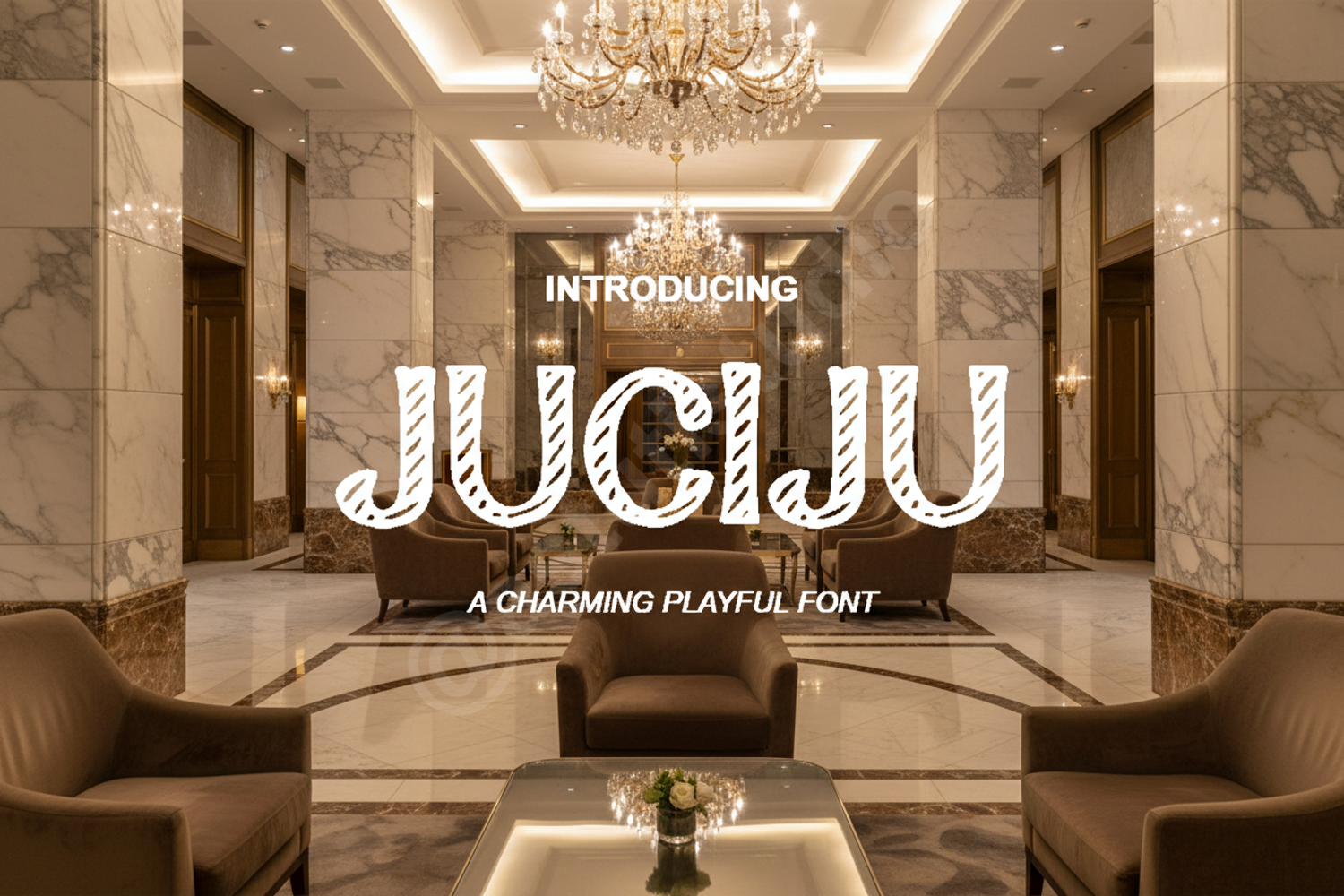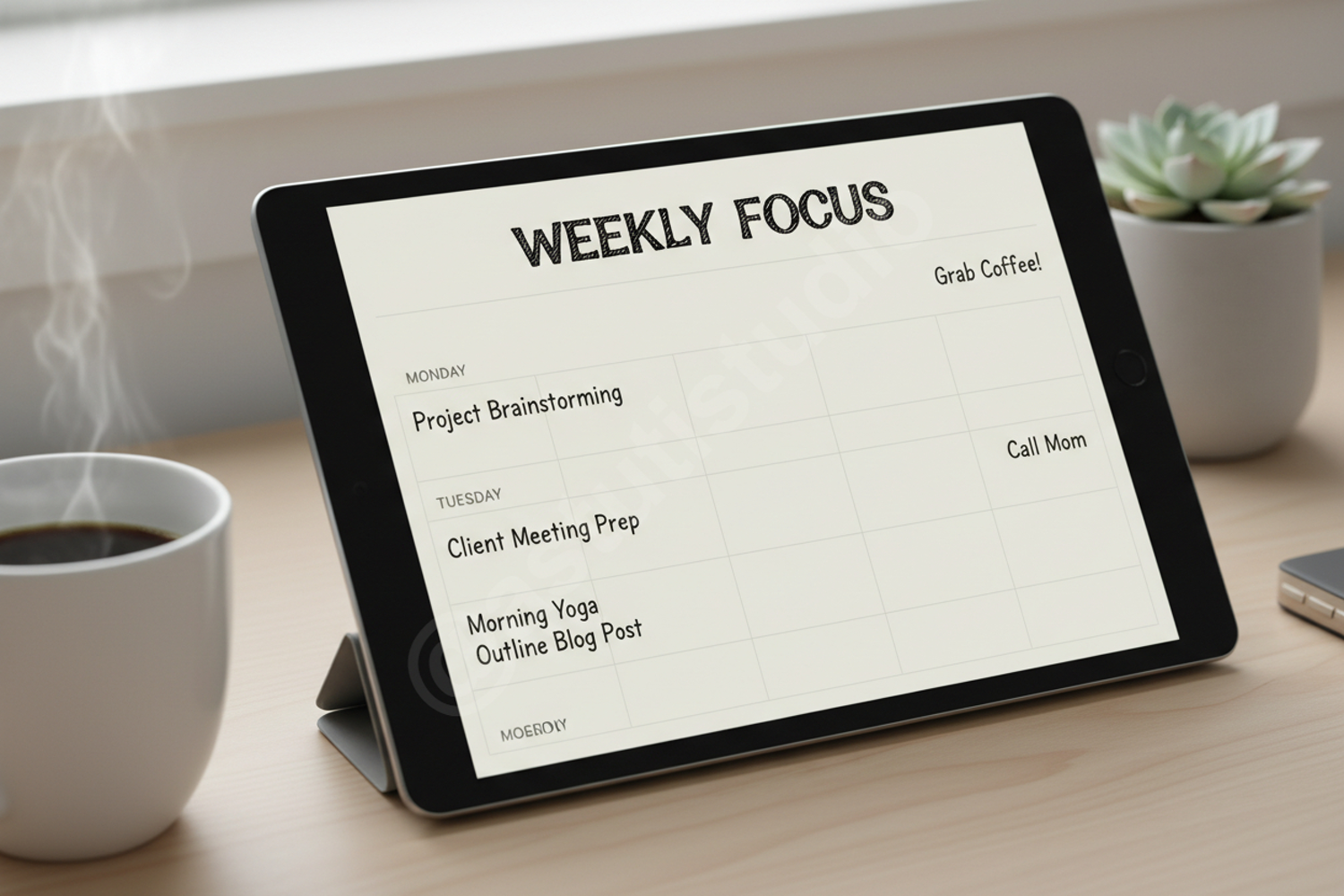
Juciju - Sophisticated Modern Serif Font
Juciju
Elevate your design projects with Juciju, a sophisticated modern serif font that blends timeless elegance with contemporary flair. Crafted with precision, Juciju offers a clean and balanced aesthetic, making it a versatile choice for designers seeking a premium touch. Whether you are working on high-end branding or minimalist layouts, this font delivers a professional finish every time.
- Full character set including uppercase, lowercase, numbers, and punctuation
- Multilingual support for global accessibility
- Luxury Branding and Identity
- Elegant Wedding Invitations and Stationery
- Editorial Design and Magazine Layouts
- Professional Logo Design
- Social Media Graphics and Quotes
- Product Packaging and Labels